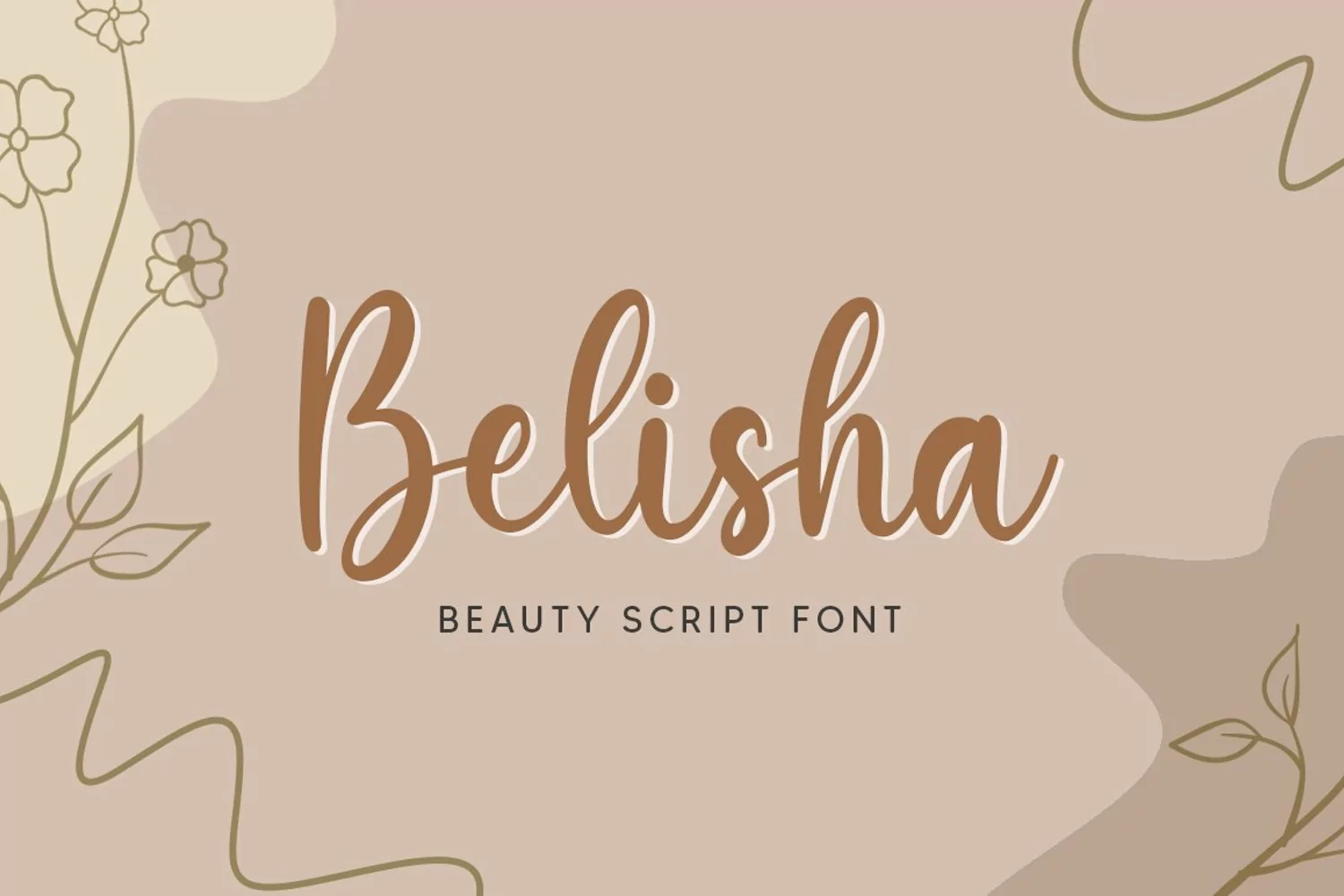
Belisha
Belisha is a dainty and flowing handwritten font.
Sweet and joyful, this font will be ideal for writing wedding invitations, cards or any other design that may need a romantic, personalized touch!